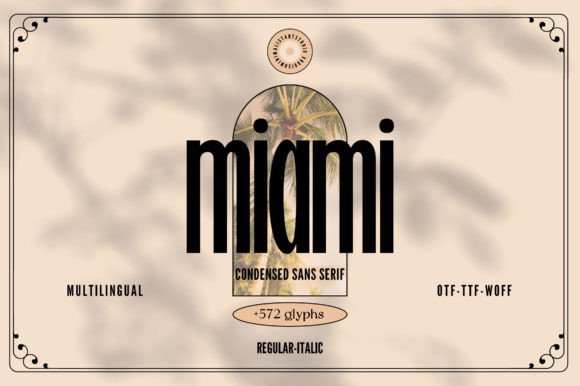
🌴 What is the Miami Font?
Miami Font is a condensed sans-serif typeface that’s all about clean lines, modern aesthetics, and upscale charm. Its tall and narrow structure gives it a sleek silhouette, making it ideal for high-impact headlines, editorial layouts, fashion branding, and modern UI design.
Think of Miami as the typographic equivalent of an upscale beachfront penthouse — refined, confident, and beautifully minimal. With just enough personality to stand out, yet subtle enough to keep things clean and professional, Miami walks the perfect line between expressive and elegant.
✨ Key Features of Miami Font
Condensed Structure: Slim, space-saving design ideal for headlines and logos.
Minimalist Style: Clean geometry and simplicity make it versatile for high-end projects.
Modern Appeal: Perfect for fashion, editorial, luxury branding, and lifestyle design.
High Legibility: Clear and readable even at smaller sizes.
Professional & Polished: Adds a refined edge to both digital and print materials.
🎨 Where Can You Use Miami Font?
Miami is not your everyday font — it’s a design statement. It’s best used when you want to communicate class, clarity, and cool confidence.
1. Luxury Branding & Logos
If you’re building a brand for fashion, beauty, real estate, or luxury services, Miami delivers the upscale look you’re after. Use it in logo design, business cards, packaging, and taglines.
2. Editorials & Magazine Layouts
The tall, elegant letterforms make Miami ideal for headlines in fashion or lifestyle magazines. Pair it with serif body text for an effortlessly stylish combo.
3. Social Media Graphics
Want to create chic Instagram quote posts or Pinterest pins? Miami brings minimalist beauty to every layout. Great for influencers, designers, and lifestyle bloggers.
4. Web Design & UI/UX
Because of its narrow form and sharp legibility, Miami works well in navigation menus, hero headers, and product showcase pages — especially in modern and minimalist websites.
5. Event Invitations & Stationery
Designing for a formal event like a gala, art show, or launch party? Miami makes invitation text look crisp, professional, and modern.
🔡 Font Pairing Ideas for Miami
Because Miami is minimalist and narrow, it pairs beautifully with fonts that offer contrast in width or texture:
With Playfair Display – Combines Miami’s modern tone with classic serif elegance.
With Montserrat or Lato – For clean, cohesive branding.
With Dancing Script – Add a personal or romantic touch to otherwise modern layouts.
Q2: What makes Miami different from other sans-serif fonts?
A: Its condensed width, minimal detailing, and modern elegance give it a refined, luxury aesthetic — perfect for fashion, branding, and editorial work.
Q5: Is Miami suitable for long body text?
A: Miami is best suited for titles, headers, and short-form content. For longer paragraphs, pair it with a standard sans-serif or serif font.
🧡 Final Thoughts
The Miami Font is a perfect fusion of minimalism, elegance, and modern typography. Its slim profile and stylish form make it an essential font for designers working in fashion, branding, lifestyle, and editorial content. Whether you’re launching a chic product line or designing high-end digital content, Miami gives your work the polished, professional finish it deserves.